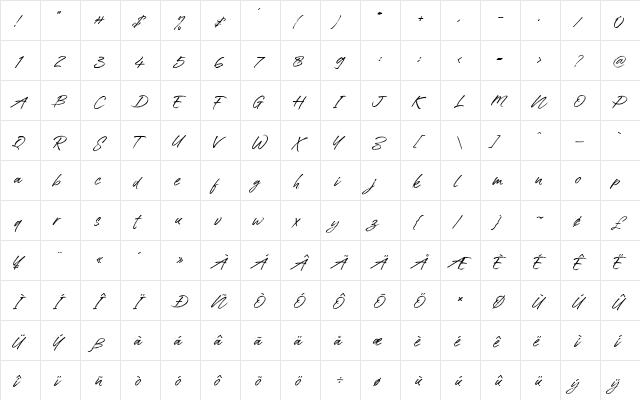
Epidson Regular
Design Context for Epidson Typeface
Epidson is a composed and adaptable typeface that performs quietly and consistently across a wide range of design contexts.